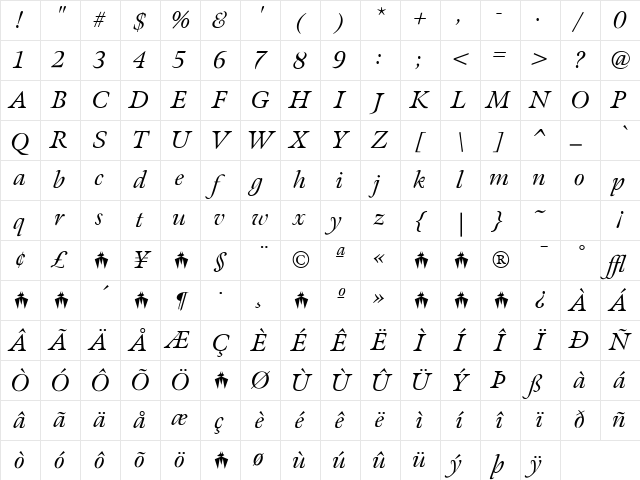
Meno Italic
Foundry: Copr. Richard Lipton, designer. Produced by The Font Bureau, Inc
Meno Family
Meno Italic
Design Context for Meno
Meno is a composed and adaptable typeface that performs quietly and consistently across a wide range of design contexts. The slanted form adds forward momentum and visual energy.
Who designed the Meno Italic font?